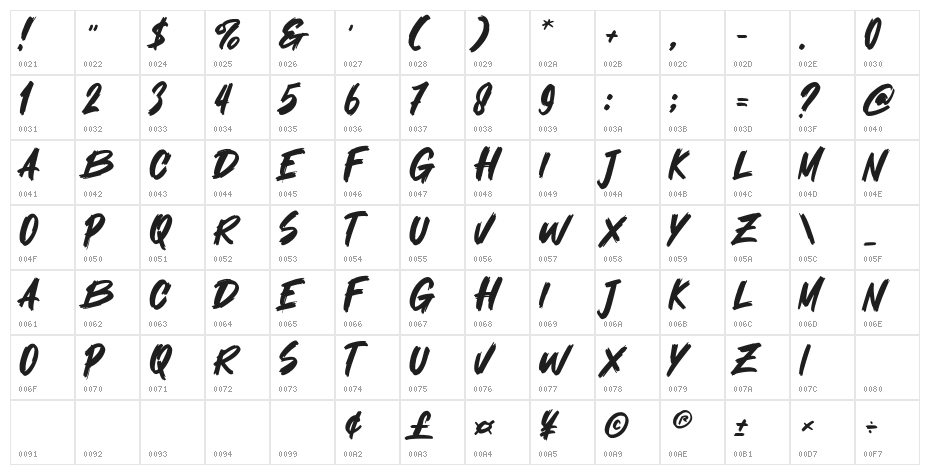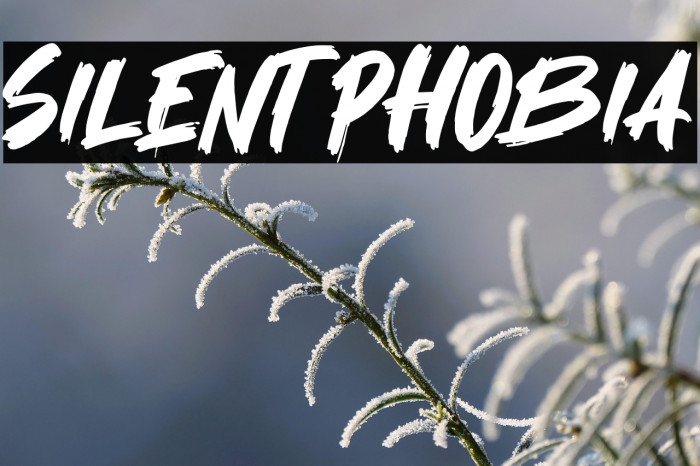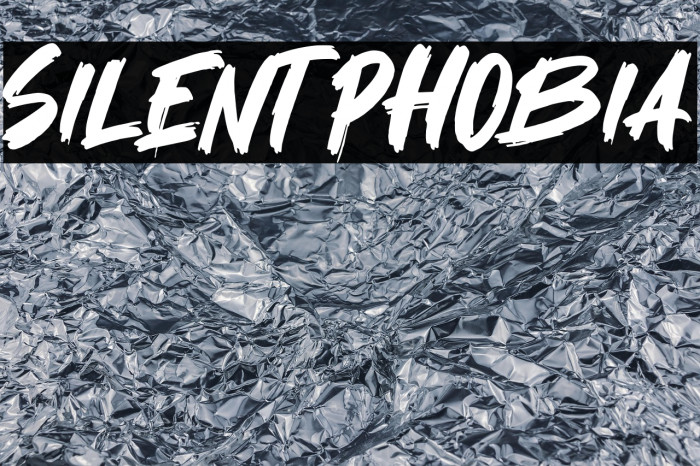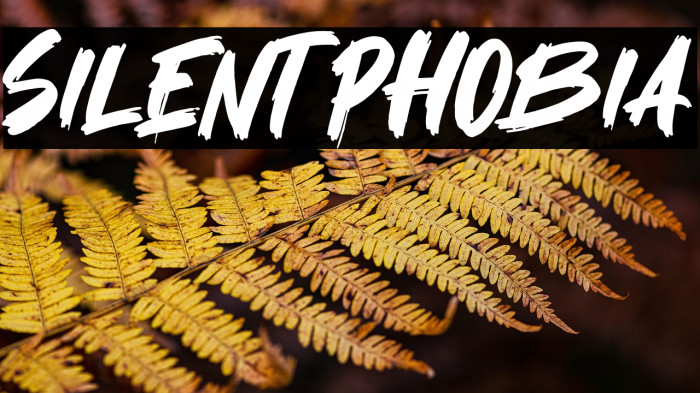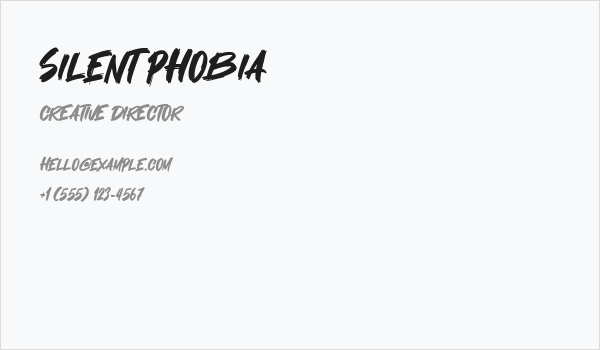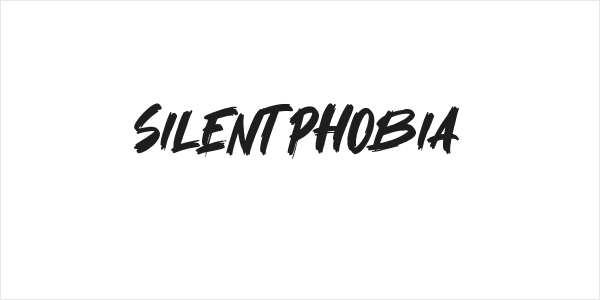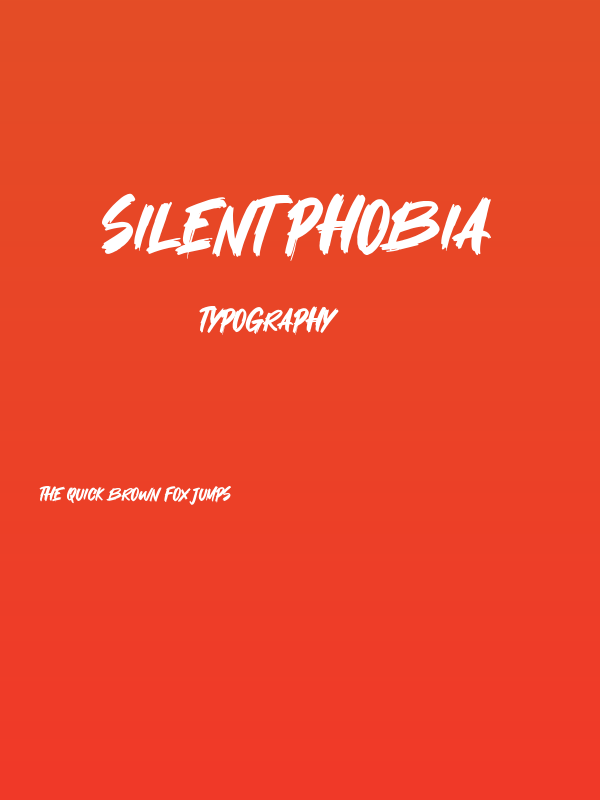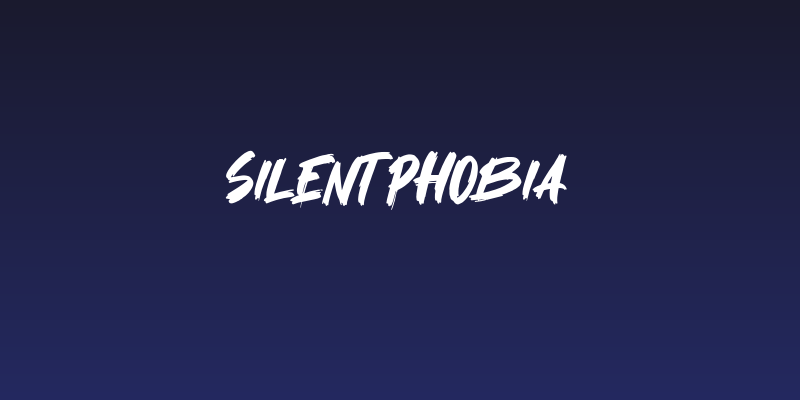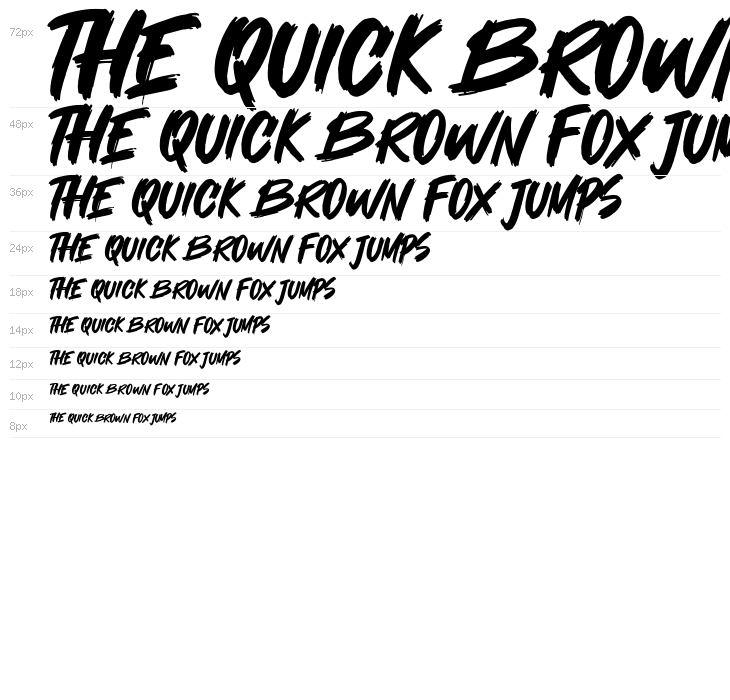
Silent Phobia Font
Silent Phobia Description
This font exhibits a bold and energetic style, characterized by its brush-like strokes and dynamic appearance. The letters are crafted with a sense of movement, giving them a lively and expressive quality. The uppercase and lowercase letters maintain a consistent style, with slightly exaggerated curves and angles that enhance their visual impact. The numbers and special characters follow the same energetic design, making them suitable for attention-grabbing displays. Overall, the font's boldness and unique style make it ideal for projects that require a strong visual presence.
| Proposed Projects | Ideal for posters, branding, headlines, and any design requiring a bold, energetic look. |